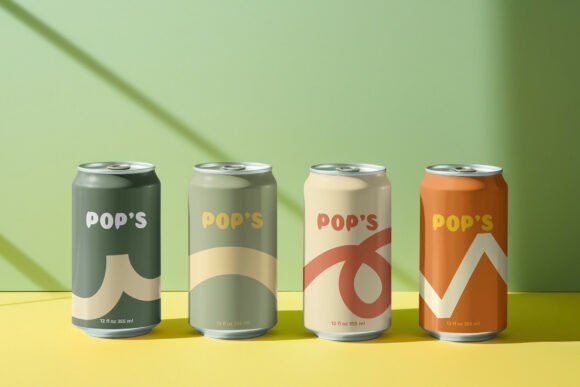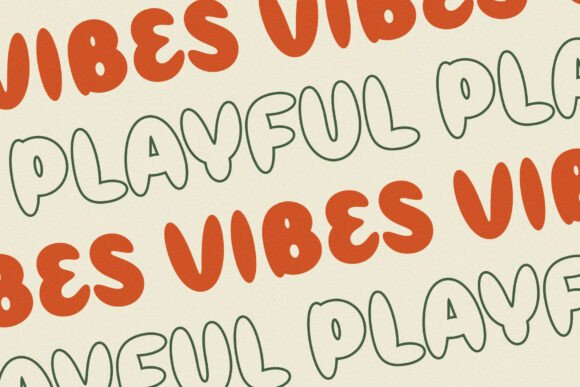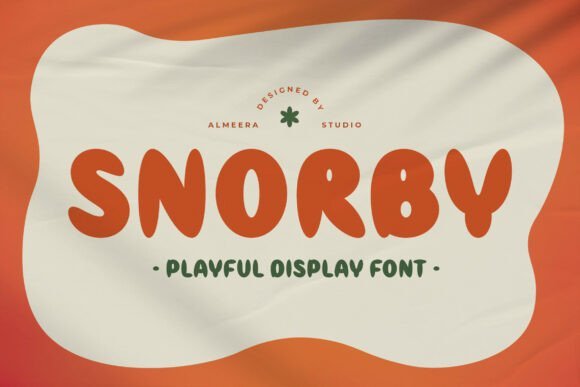
Introduction to Snorby Font
Snorby is a fun and playful display font with soft curves and friendly character.
Its casual, hand-drawn look makes it ideal for kids’ projects, branding, packaging, posters, and creative social media content Snorby brings a warm, approachable, and joyful vibe to your designs, making them instantly more inviting.
Key Features of Snorby Font
Why Choose Snorby Font?
Snorby Font offers exceptional quality and versatility, making it a valuable addition to your design toolkit. Whether you’re creating for personal projects or commercial use, Snorby Font delivers professional results.